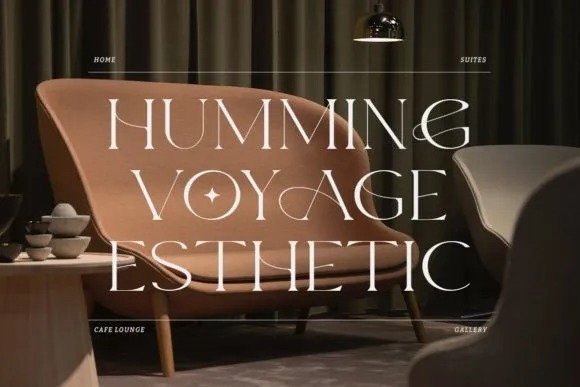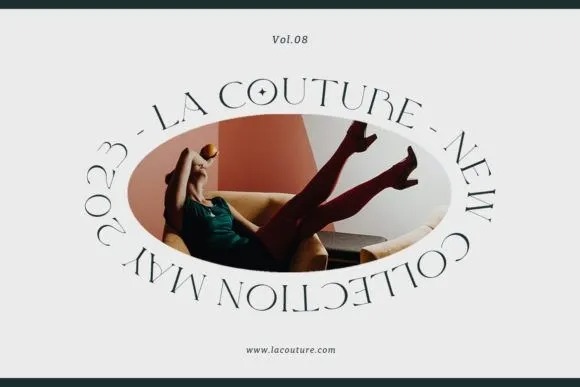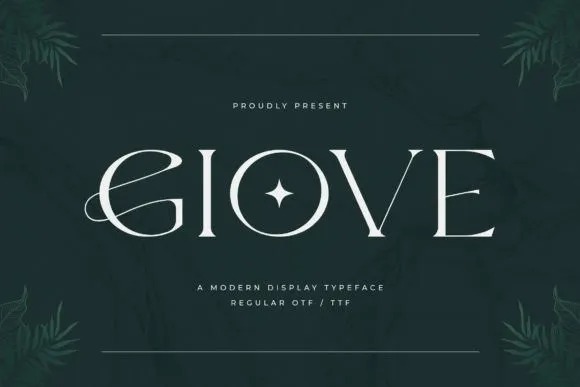
Giove Font Free
Giove Serif Font is a modern and stylish display font. Its elegant and sophisticated look will come in handy when you need to create chic designs.